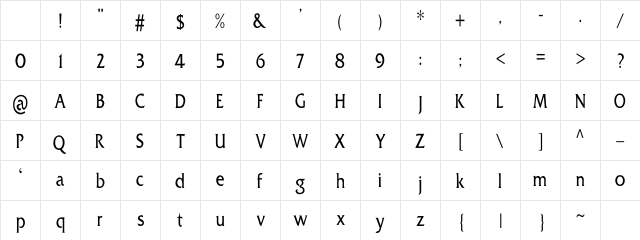
QuadrantThin Regular
Design Context for QuadrantThin
QuadrantThin is a composed and adaptable typeface that performs quietly and consistently across a wide range of design contexts. Its slender proportions lend an understated elegance to any composition.
Pro Tip: Use QuadrantThin in both headline and body roles to test its range before committing to a single application.